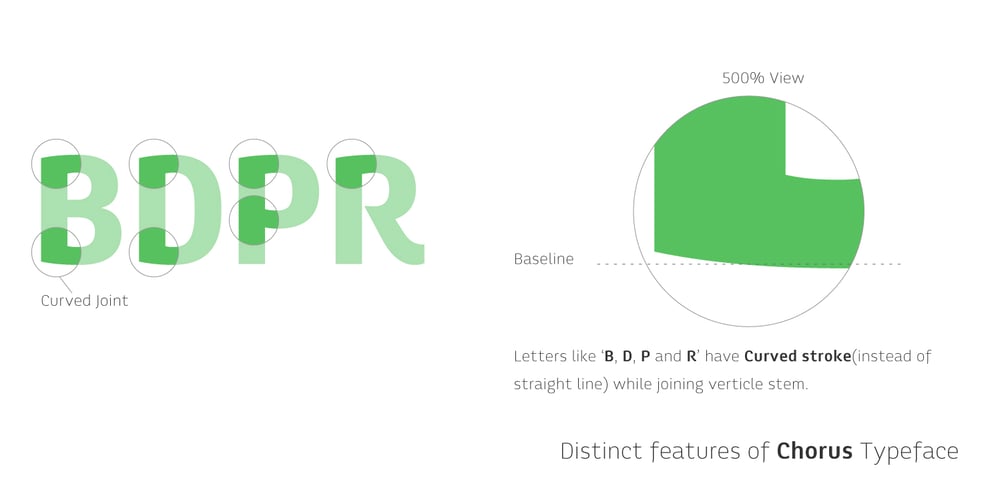
Chorus
Chorus font
Chorus Font Family was designed by Aakash Soneri and published by Soneri Type. Chorus contains 20 styles and family package options. Chorus is a collective effort to sing in harmony. Similarly, each letter is designed to reflect harmony when used together to form a letter, sentence or paragraph. Letters like B, D, P and R have curved stroke (instead of straight line) while joining vertical stem. Letter K, k, and R have similar disjoint point in middle and unique plus stylish curve at foot. Letter C and G has distinct horizontal cut at top as compared to other letters in typeface e.g. S. Letter like b, h, m, n, and p have consistent stroke joint style with vertical stem.Ink traps in various letters are designed such that they blend with the letter form at certain degree instead, getting emphasised.The family comes in various styles in weight and width.